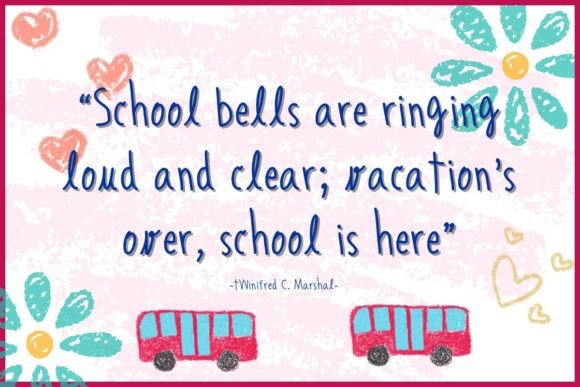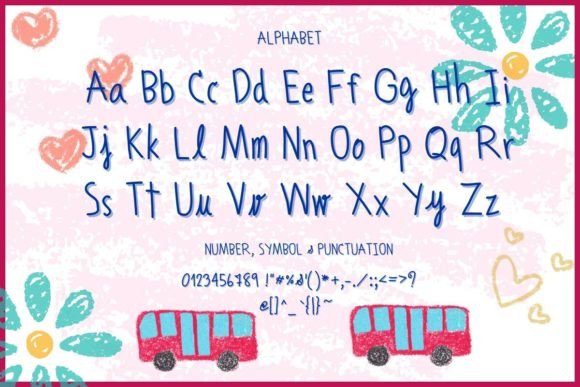
Introduction to Puiez Font
Have you ever found yourself stuck in a creative rut, staring at a blank page, desperate for the perfect font to bring your idea to life? That’s where the magic of Puiez Font comes in – a dynamic, high-quality font that radiates youthful exuberance and positivity. With its adaptable and versatile design, Puiez Font is the ultimate design resource for any creative project, whether you’re working on a personal blog, a social media campaign, or a high-stakes business proposal.
| 👤 Author | Home and Hug |
What sets Puiez Font apart is its ability to transcend across multiple platforms, making it the perfect companion for your day-to-day tasks or personal communications. And the best part? It’s available for a free download, allowing you to experiment with its limitless possibilities without breaking the bank. Whether you’re a seasoned designer or a creative newbie, Puiez Font is sure to inspire your next project and help you express yourself in a whole new way.
Puez Font
- High-quality font suitable for creative projects, available for free download as a design resource.
- Unique characteristic: Puiez Font has a distinctive, modern design that sets it apart from other fonts in its category.
- Designed for use in digital and print media, Puiez Font is a versatile font that can be used in a variety of creative projects.
Honest Review: Puiez Font
I recently had the opportunity to work with the Puiez Font for a creative project and I must say it was a great experience. The font has a clean and modern design that fits well with a variety of styles. Here are some of the things that worked well for me:
- ✨ High quality design: The Puiez Font has a crisp and clear design that looks great on screen and in print.
While the Puiez Font is a great resource, there are a few limitations to be aware of:
- ⚠️ Limited character set: The font only includes a basic character set, which may not be suitable for complex or technical projects.
- ⚠️ Not ideal for small text: The font is best used for larger text sizes, as it can become difficult to read at smaller sizes.
Overall, I was impressed with the Puiez Font and would recommend it for designers looking for a high-quality, free font for their creative projects. While it may have some limitations, it’s a great resource to have in your design arsenal.
Puiez Font
Use the Puiez Font with a transparent background to create a modern and sleek design. Experiment with different font sizes and colors to add visual interest to your creative project.
The Puiez Font is perfect for use in logos, business cards, and other branding materials. It’s also great for use in presentations, social media graphics, and other design projects where a high-quality, modern font is needed.